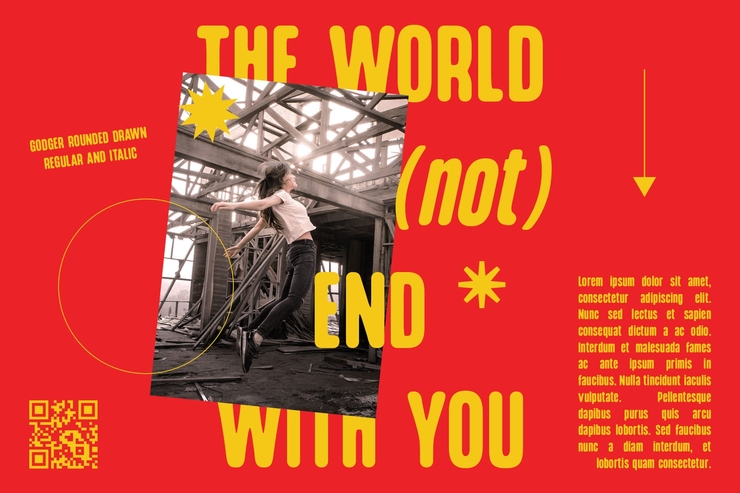
Godger Rounded Drawn Stylish Trendy Tech Elegant English Font
Godger Rounded Drawn is a distinctive English typeface that combines stylish trend, futuristic tech vibe and elegant rounded drawn letterforms. It features smooth rounded strokes, delicate drawn textures, and well-proportioned glyph structures, blending modern fashion sense with subtle technological charm. The font maintains an elegant temperament in every character, balancing trendy elements and classic grace to create a unique visual appeal. Complete with full uppercase and lowercase letters, it is ideal for brand logos, fashion posters, tech banners, e-commerce headlines, product packaging, UI interface text and decorative typography. All glyphs are scalable and easy to edit; you can freely adjust size, color and texture while preserving its original drawn style and rounded elegance. Suitable for designers, creative studios and commercial branding projects to add trendy, high-end charm to all design works.